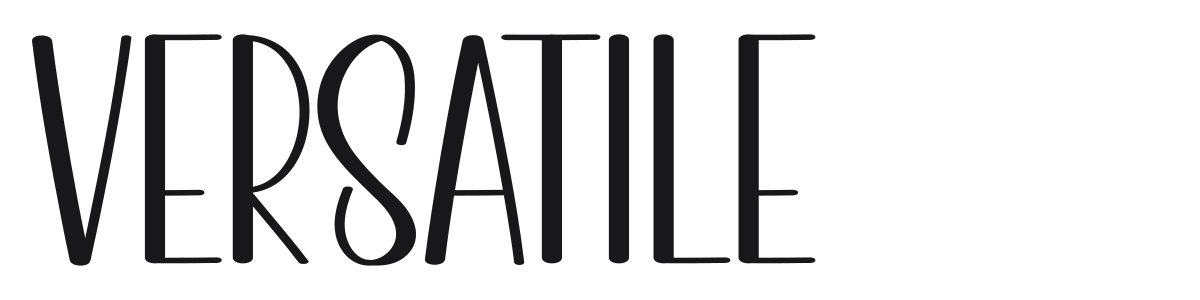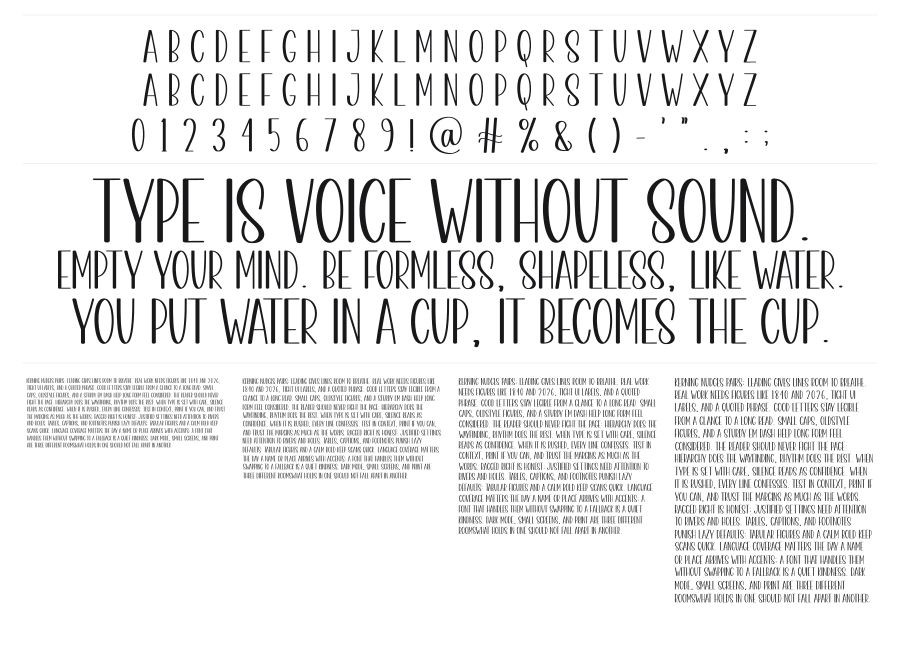
Versatile
Versatile is a tall condensed sans-serif with a graceful, slightly handcrafted feel built into its near-monoweight strokes. The elongated proportions and subtle taper at stroke endings give it a quiet elegance that sits comfortably between geometric precision and organic warmth. It works especially well in editorial headlines, packaging, and any context where clean sophistication is the goal.